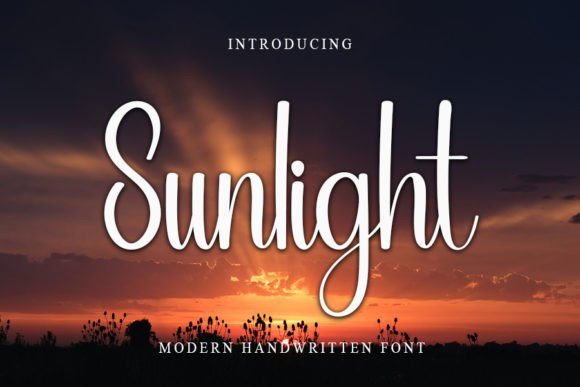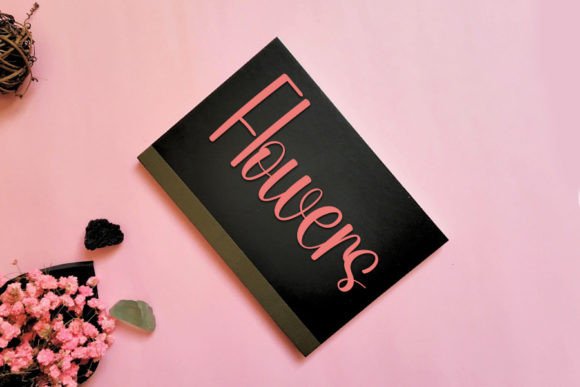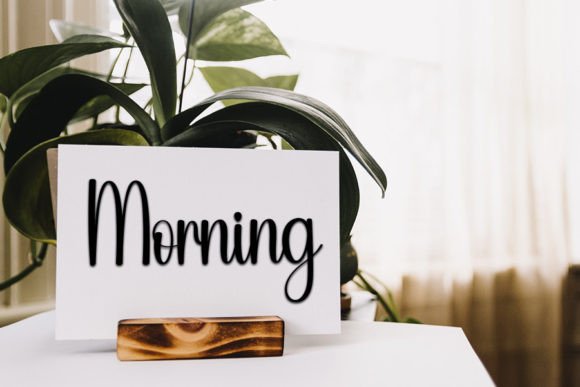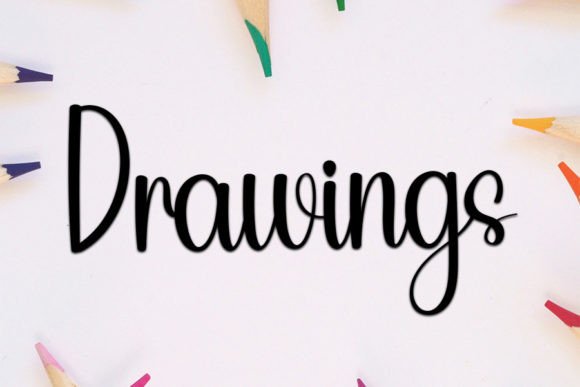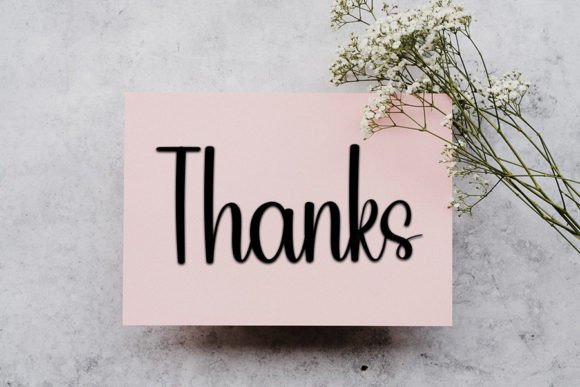
Sunlight
About Sunlight
Sunlight is a neat and beautiful handwritten font described by an elegant touch, perfect for your favorite projects. Fall in love with its incredibly distinct and timeless style, and use it to create spectacular designs!